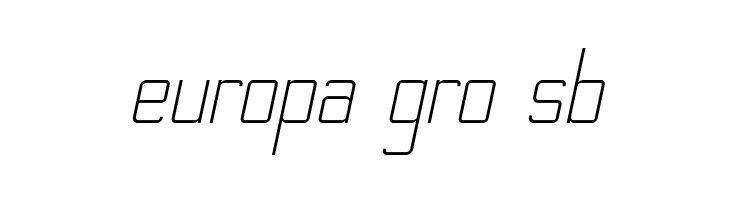
A sleek, modern font with thin, elongated letterforms and tight spacing.
A modern, italicized font with smooth, flowing lines and a stylish appearance.
A sleek, modern, and slightly italicized font with a hairline weight.
A sleek, thin, italicized font with a modern and elegant design.
A sleek, modern, thin italic font with elongated letterforms.
A sleek, modern, and light italic font with elegant elongated characters.
A sleek, modern italic font with thin strokes and a geometric structure.